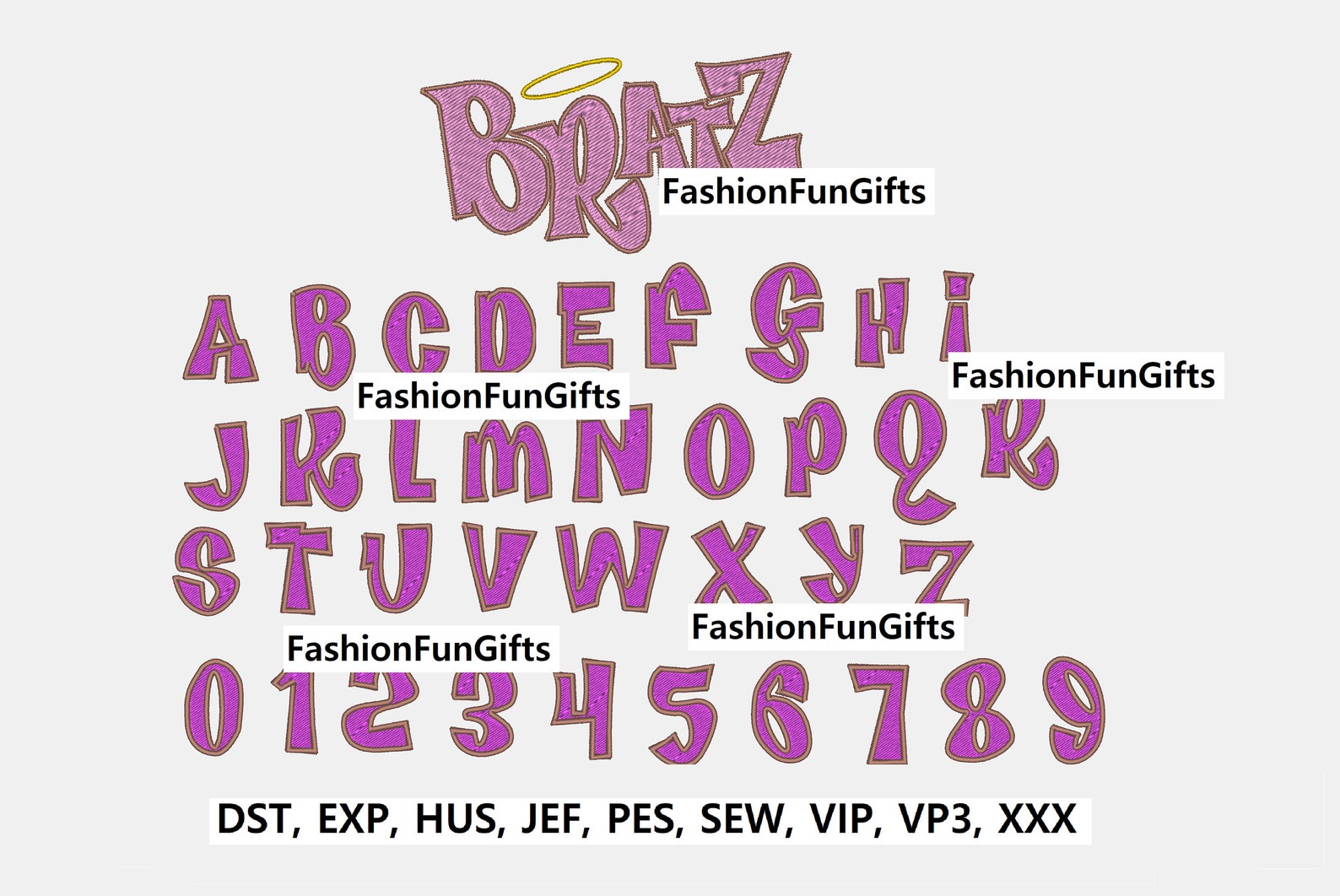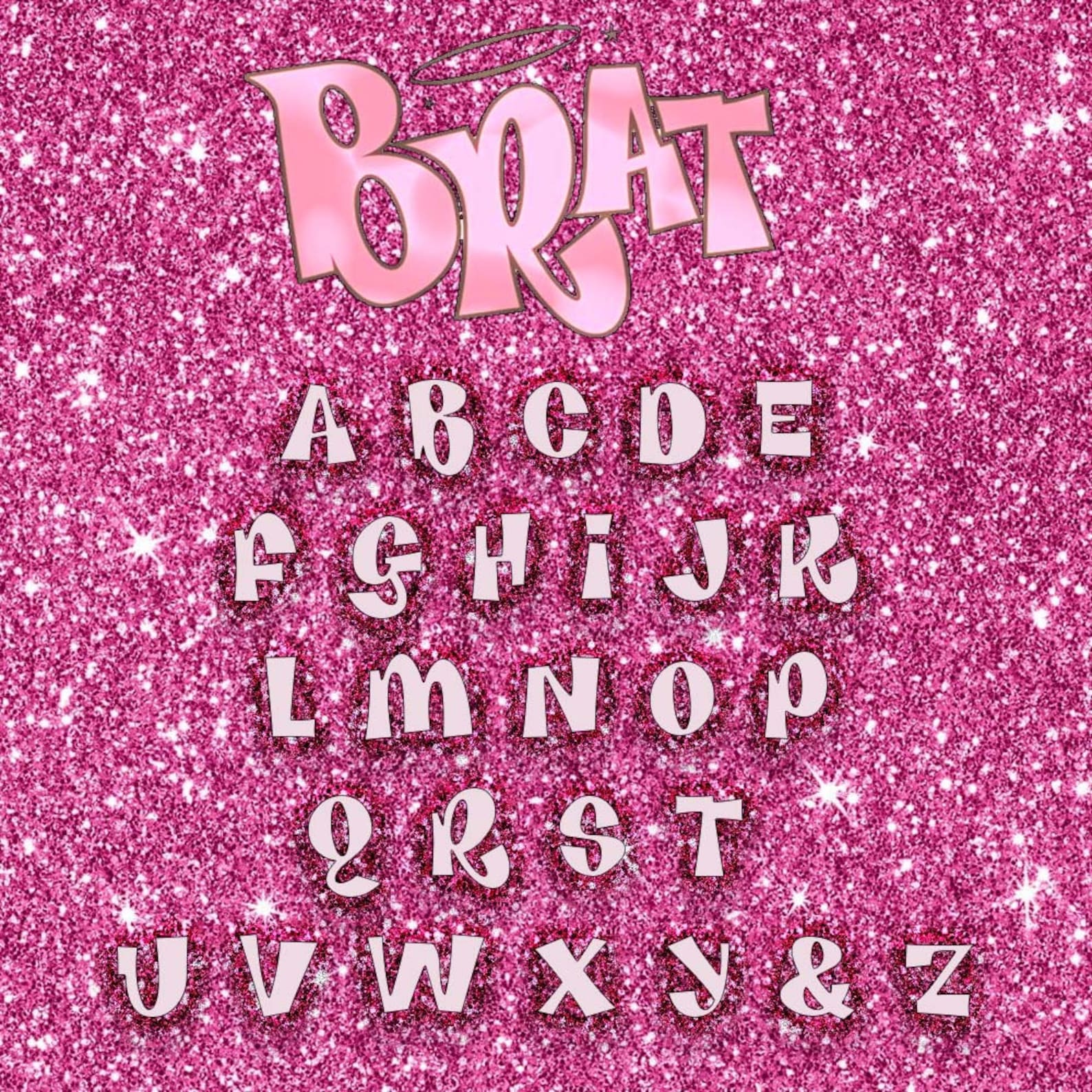
Bratz Letters Font
Bratz Letters Font - The bratz font is a funky decorative font inspired by the popular lettering of the bratz dolls. It is a fun and playful font that can be used to add a youthful, lively, and fashionable touch to your personal designs. Bratz is an american brand owned by mga entertainment. We can help you convert any text into beautiful fonts with eye catching styles with our bratz font. The bratz font is a funky decorative font inspired by the popular lettering of the bratz dolls. It is a fun and playful font that can be used to add a youthful, lively, and fashionable touch to your personal designs. Bratz logo editable with our free online font generator. Select a bratz letter font from above to create a cute and sweet logo image. Using these fonts you can create a unique image that replicates the exact same bratz letters as. Try our text generator and create cool graphics for bratz font, then you can save the font image to your pc, mac, linux, ios and android device.
Using these fonts you can create a unique image that replicates the exact same bratz letters as. It is a fun and playful font that can be used to add a youthful, lively, and fashionable touch to your personal designs. The bratz font is a funky decorative font inspired by the popular lettering of the bratz dolls. It is a fun and playful font that can be used to add a youthful, lively, and fashionable touch to your personal designs. Select a bratz letter font from above to create a cute and sweet logo image. Bratz logo editable with our free online font generator. Try our text generator and create cool graphics for bratz font, then you can save the font image to your pc, mac, linux, ios and android device. We can help you convert any text into beautiful fonts with eye catching styles with our bratz font. The bratz font is a funky decorative font inspired by the popular lettering of the bratz dolls. Bratz is an american brand owned by mga entertainment.
It is a fun and playful font that can be used to add a youthful, lively, and fashionable touch to your personal designs. We can help you convert any text into beautiful fonts with eye catching styles with our bratz font. The bratz font is a funky decorative font inspired by the popular lettering of the bratz dolls. Bratz logo editable with our free online font generator. It is a fun and playful font that can be used to add a youthful, lively, and fashionable touch to your personal designs. Bratz is an american brand owned by mga entertainment. Try our text generator and create cool graphics for bratz font, then you can save the font image to your pc, mac, linux, ios and android device. Using these fonts you can create a unique image that replicates the exact same bratz letters as. Select a bratz letter font from above to create a cute and sweet logo image. The bratz font is a funky decorative font inspired by the popular lettering of the bratz dolls.
The bratz font is a funky decorative font inspired by the popular lettering of the bratz dolls. It is a fun and playful font that can be used to add a youthful, lively, and fashionable touch to your personal designs. The bratz font is a funky decorative font inspired by the popular lettering of the bratz dolls. Select a bratz.
Using these fonts you can create a unique image that replicates the exact same bratz letters as. The bratz font is a funky decorative font inspired by the popular lettering of the bratz dolls. Try our text generator and create cool graphics for bratz font, then you can save the font image to your pc, mac, linux, ios and android.
Select a bratz letter font from above to create a cute and sweet logo image. We can help you convert any text into beautiful fonts with eye catching styles with our bratz font. Bratz is an american brand owned by mga entertainment. Try our text generator and create cool graphics for bratz font, then you can save the font image.
Try our text generator and create cool graphics for bratz font, then you can save the font image to your pc, mac, linux, ios and android device. It is a fun and playful font that can be used to add a youthful, lively, and fashionable touch to your personal designs. Select a bratz letter font from above to create a.
Try our text generator and create cool graphics for bratz font, then you can save the font image to your pc, mac, linux, ios and android device. We can help you convert any text into beautiful fonts with eye catching styles with our bratz font. The bratz font is a funky decorative font inspired by the popular lettering of the.
Try our text generator and create cool graphics for bratz font, then you can save the font image to your pc, mac, linux, ios and android device. The bratz font is a funky decorative font inspired by the popular lettering of the bratz dolls. It is a fun and playful font that can be used to add a youthful, lively,.
Using these fonts you can create a unique image that replicates the exact same bratz letters as. It is a fun and playful font that can be used to add a youthful, lively, and fashionable touch to your personal designs. Select a bratz letter font from above to create a cute and sweet logo image. We can help you convert.
The bratz font is a funky decorative font inspired by the popular lettering of the bratz dolls. We can help you convert any text into beautiful fonts with eye catching styles with our bratz font. Bratz logo editable with our free online font generator. Try our text generator and create cool graphics for bratz font, then you can save the.
Select a bratz letter font from above to create a cute and sweet logo image. Bratz is an american brand owned by mga entertainment. It is a fun and playful font that can be used to add a youthful, lively, and fashionable touch to your personal designs. Bratz logo editable with our free online font generator. The bratz font is.
It Is A Fun And Playful Font That Can Be Used To Add A Youthful, Lively, And Fashionable Touch To Your Personal Designs.
We can help you convert any text into beautiful fonts with eye catching styles with our bratz font. The bratz font is a funky decorative font inspired by the popular lettering of the bratz dolls. Bratz is an american brand owned by mga entertainment. Bratz logo editable with our free online font generator.